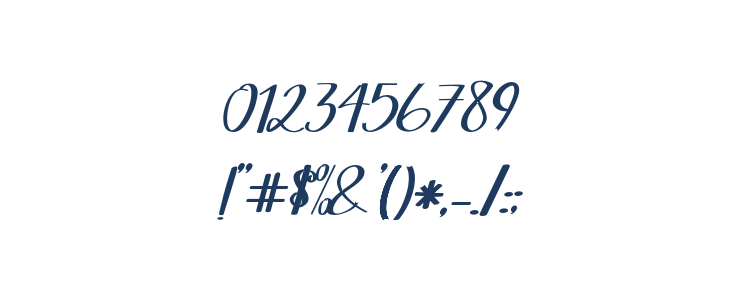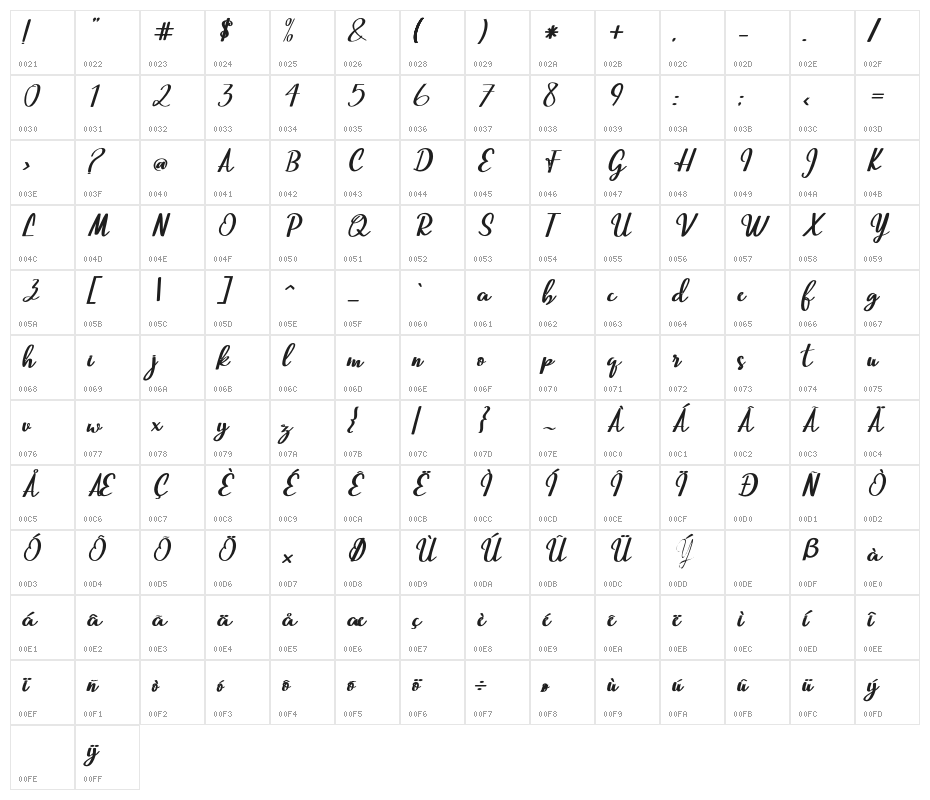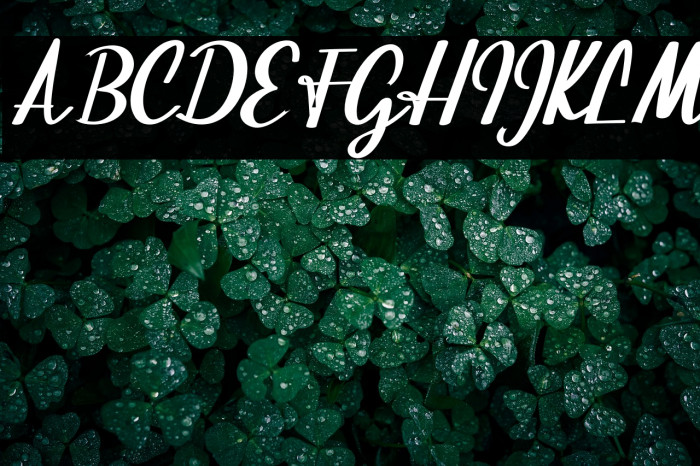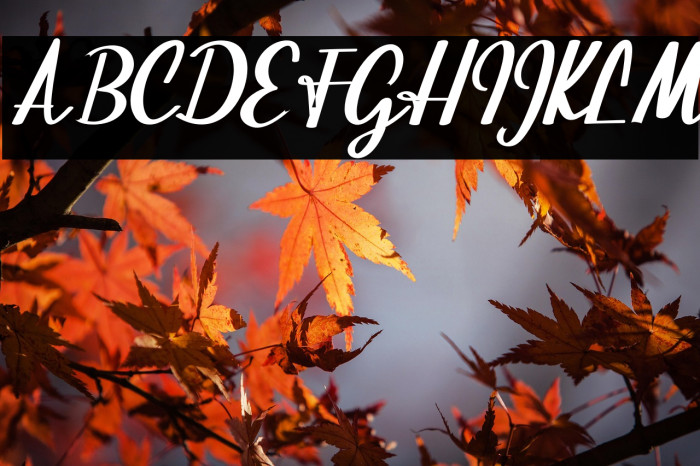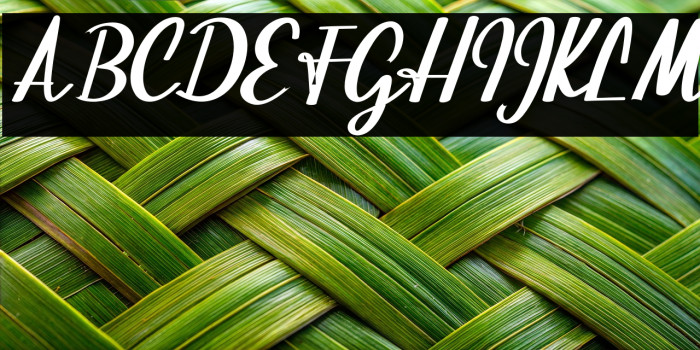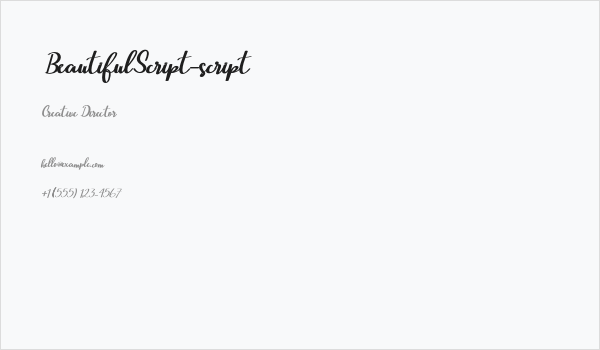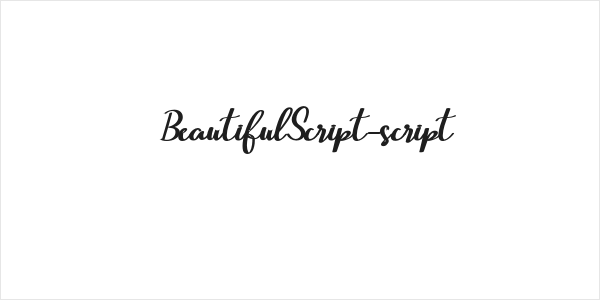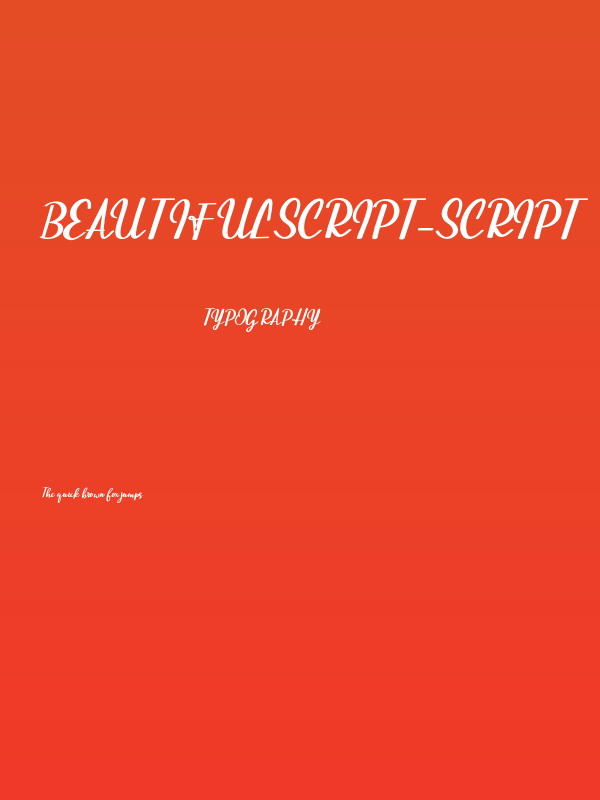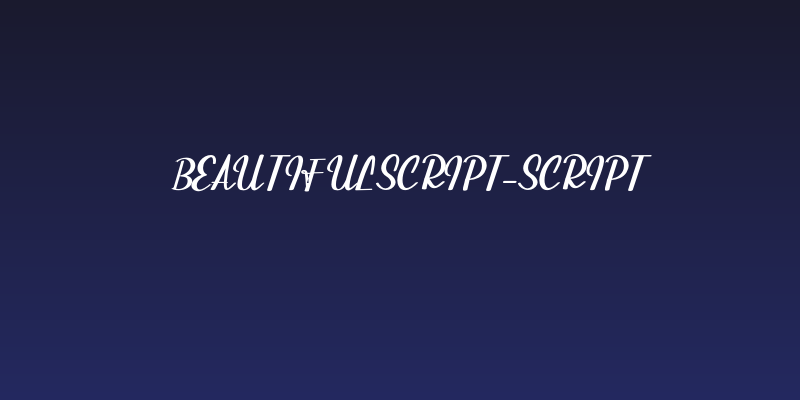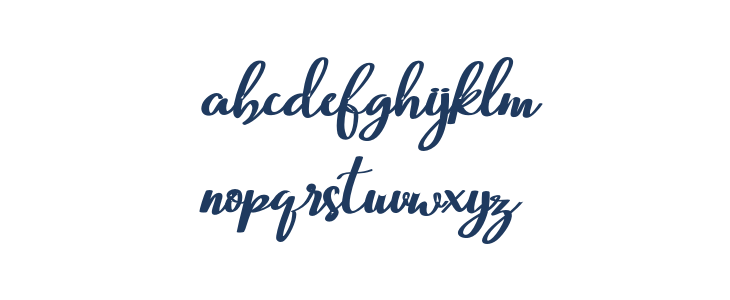
BeautifulScript-script Font
BeautifulScript-script Description
This elegant script font features a flowing, cursive style that exudes sophistication and grace. The characters are interconnected with smooth, sweeping strokes, creating a sense of fluidity and movement. The uppercase letters are bold and prominent, while the lowercase letters maintain a delicate balance with their slightly narrower form. The numerals are consistent with the script's overall style, offering a cohesive look. Special characters are thoughtfully designed to match the font's aesthetic, ensuring versatility in various design applications. The font's high contrast between thick and thin strokes adds to its dramatic appeal, making it suitable for eye-catching headlines or elegant invitations.
| Overall Style | Elegant |
| Use Case | Headlines, Invitations, Branding |
| Proposed Projects | Ideal for wedding invitations, elegant branding, greeting cards, and luxury product packaging. |